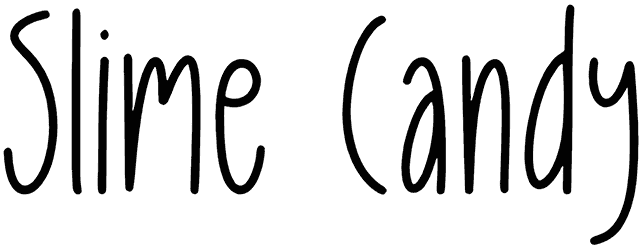
Slime Candy Font
The tall and skinny letters of Slime Candy will surprise you with their sweet but effective tone, whatever you use them for. Even though designed as a handwritten font, it’s more focused on sounding playful than making t…
The tall and skinny letters of Slime Candy will surprise you with their sweet but effective tone, whatever you use them for. Even though designed as a handwritten font, it’s more focused on sounding playful than making things seem real.
Just let Slime Candy set the mood for fun on your behalf. Sure enough, this type of candy font is perfectly suitable for branding lollipops and cakes, as well as advertising your bakeries, toy stores, kindergarten, and more through posters.